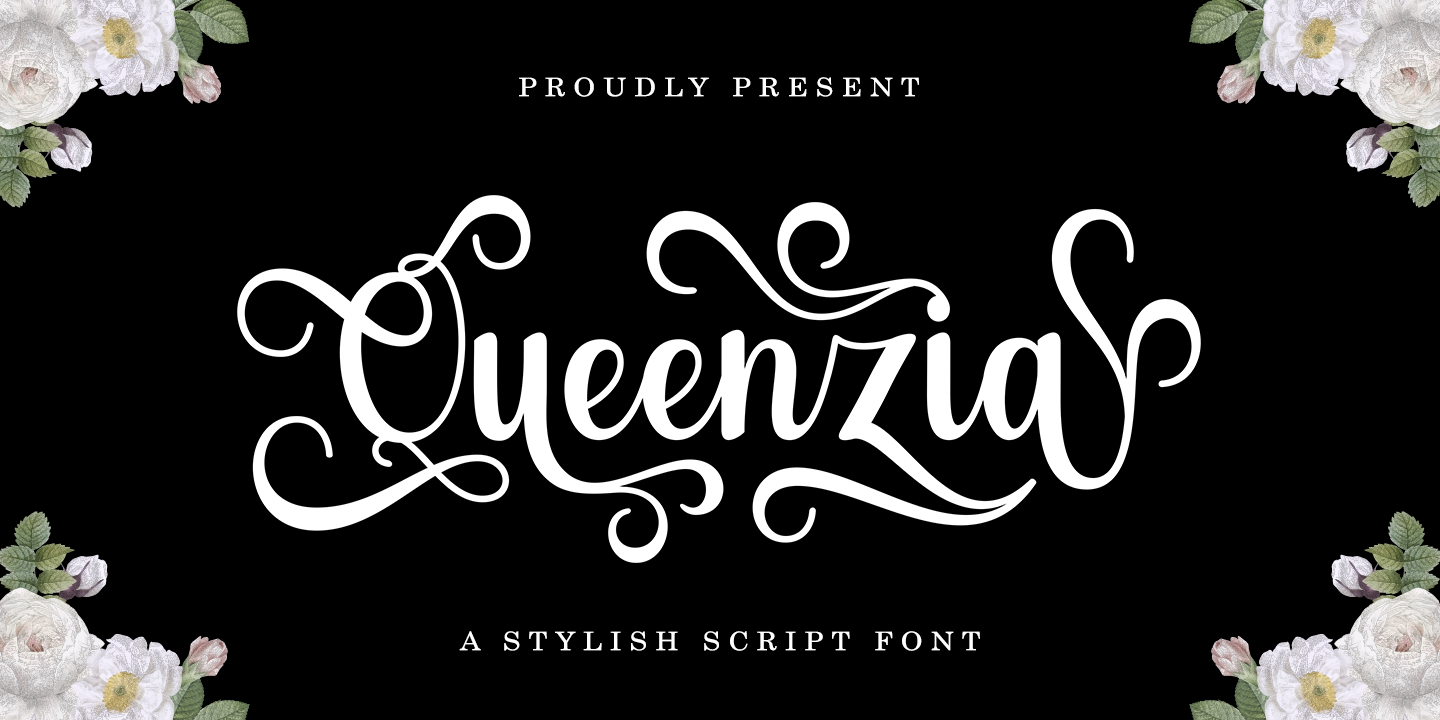
Queenzia Font is perfect for luxury fashion magazines, royal wedding invitations, high-end jewelry advertisements, premium cosmetics packaging, elegant crown logos, sophisticated palace branding, regal event stationery, and exclusive boutique identities. This majestic typeface excels in luxury market applications, royal-themed designs, and any project requiring imperial elegance that conveys supreme quality and aristocratic sophistication.
What makes Queenzia Font exciting is its magnificent ability to embody royal grandeur and imperial elegance through letterforms that command respect and admiration while maintaining graceful sophistication. The font features regally crafted characters with crown-like flourishes and aristocratic proportions that evoke feelings of luxury and exclusivity, making it ideal for brands seeking to establish premium positioning and convey supreme quality. Its majestic presence ensures instant recognition of luxury and refinement.
Queenzia Font family includes multiple weights and styles: Regular, Bold, Light, Medium, Italic variations, and ornamental alternates with royal decorative elements and crown embellishments. Each family member maintains the distinctive regal character while offering comprehensive design options for luxurious brand applications, from elegant body text to commanding royal headlines that establish imperial authority and sophisticated elegance.
Whether you're designing luxury brand identities or creating exclusive high-end marketing materials, Queenzia Font Free Download provides the perfect typography solution for regal branding needs. This font transforms ordinary text into magnificent royal proclamations that communicate supreme luxury and aristocratic quality. Luxury brands and premium designers choose this typeface for its ability to convey imperial elegance through majestically crafted letterforms that inspire reverence and establish unquestionable prestige.